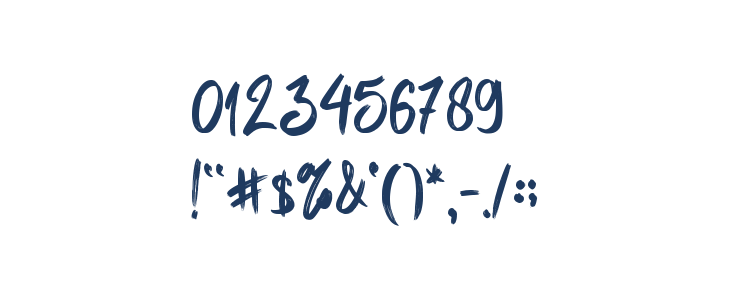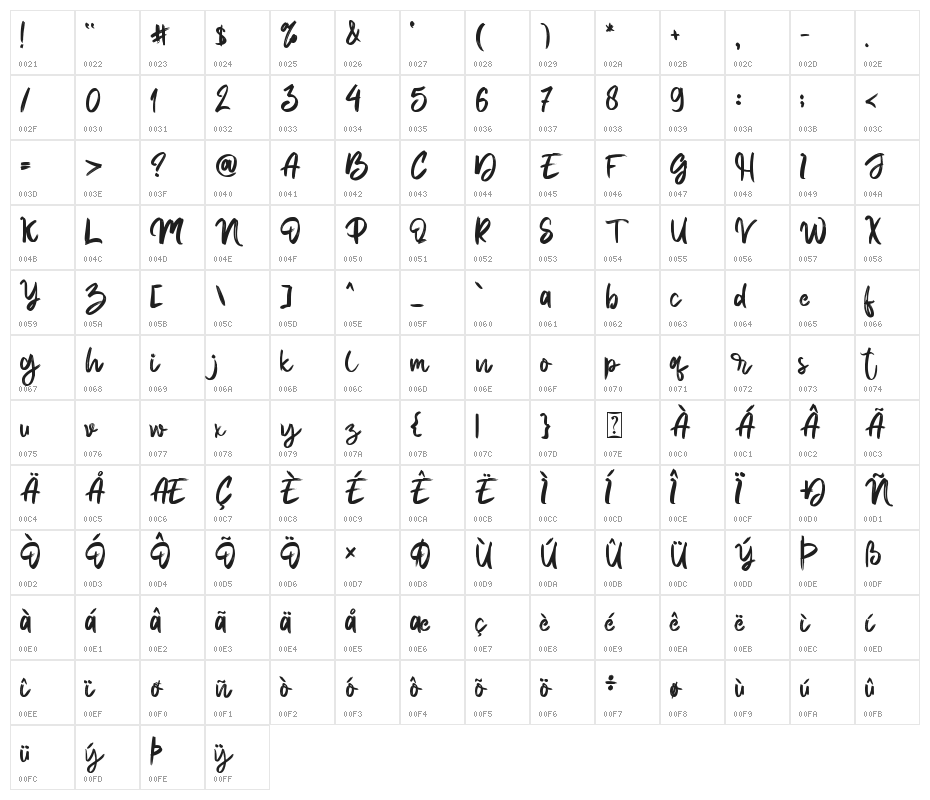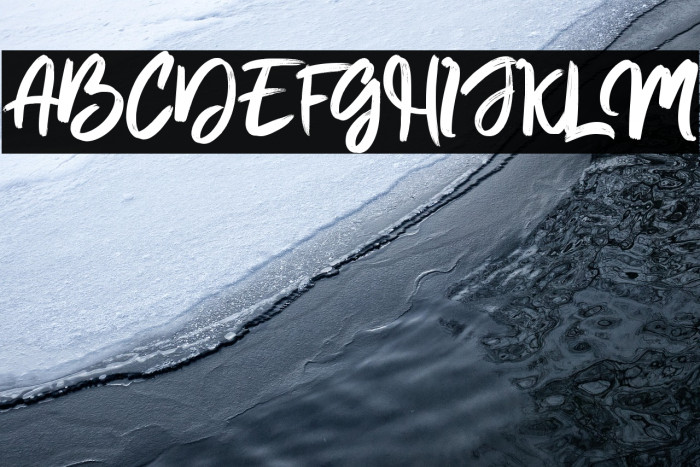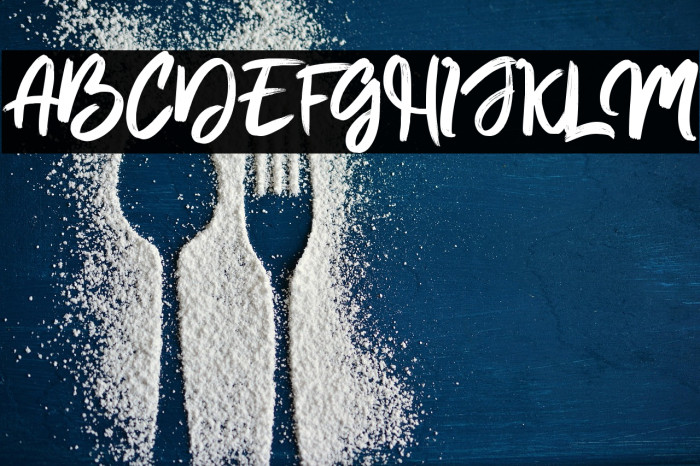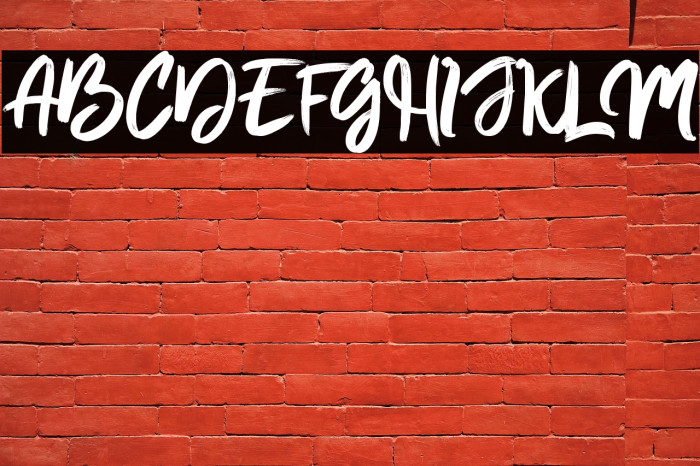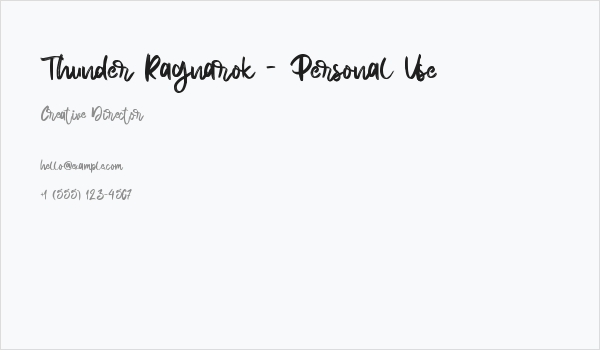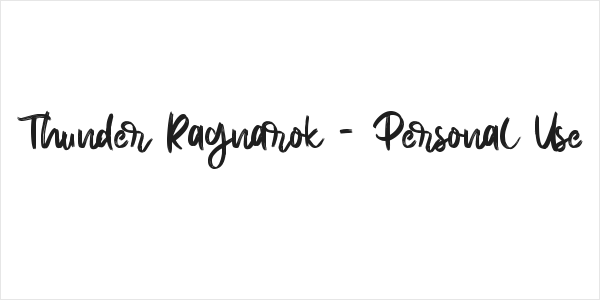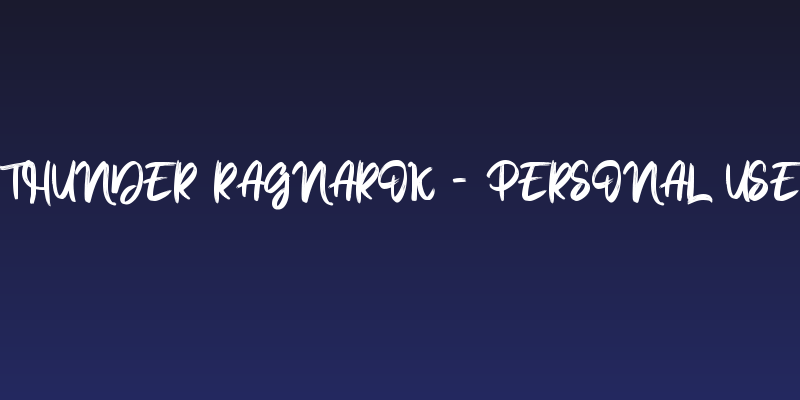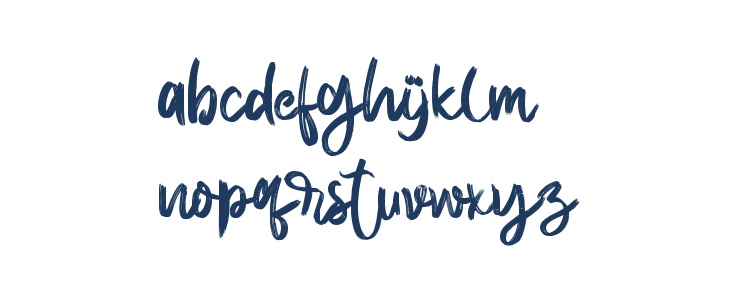
Thunder Ragnarok - Personal Use Font
Thunder Ragnarok - Personal Use Description
This font features a bold, expressive style with a brush script appearance, characterized by its dynamic and fluid strokes. The letters have a hand-painted look, with varying thickness that adds a sense of movement and energy. The uppercase letters are particularly striking, with dramatic curves and loops, while the lowercase letters maintain a cohesive flow. Numbers and special characters are designed with the same artistic flair, making them stand out. This font is perfect for projects that require a personal touch or a creative, artistic vibe.
| Use Case | Logos, Headlines, Posters |
| Proposed Projects | Ideal for branding, posters, invitations, and any project needing a creative, artistic touch. |